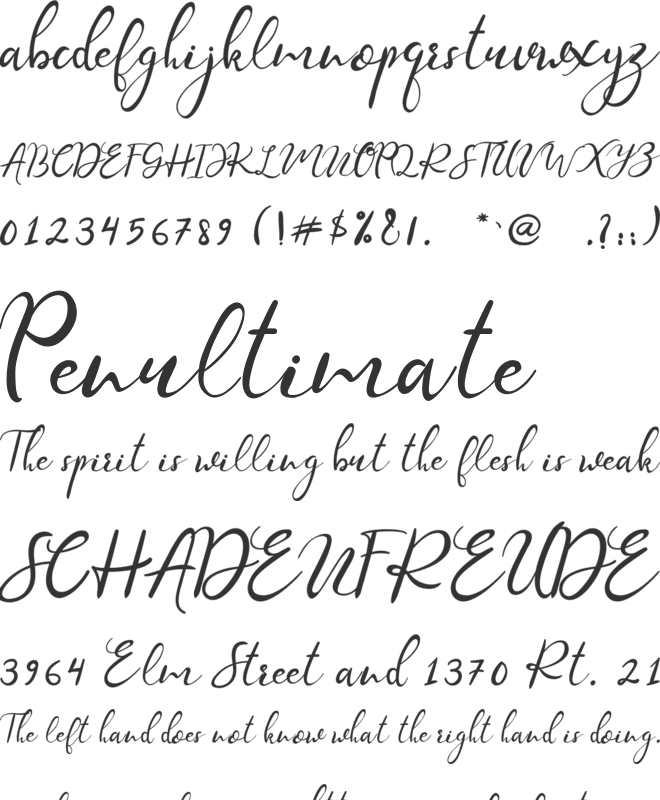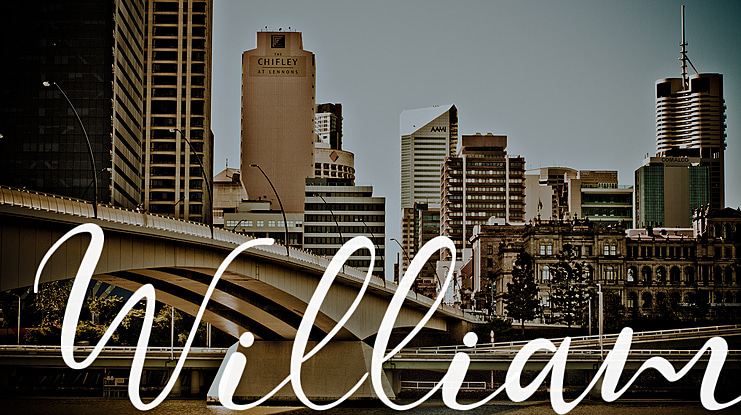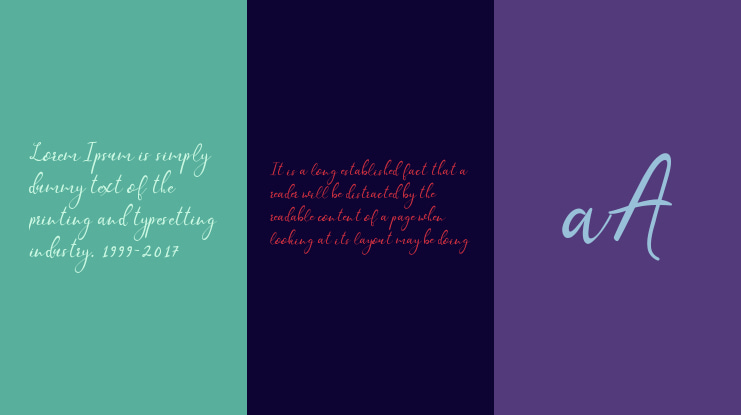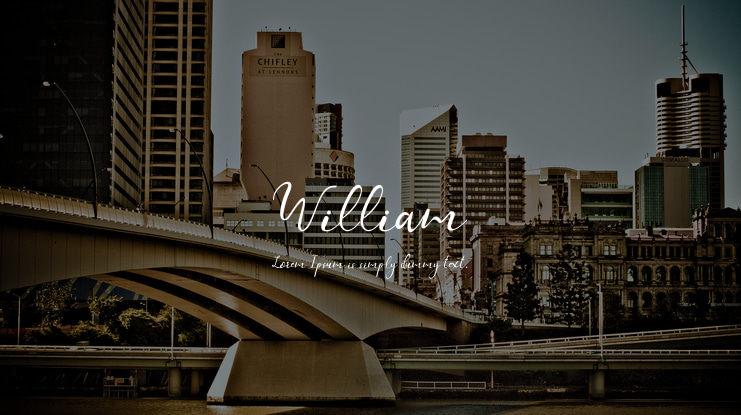
William Font
William *A Lovely Script Calligraphy*
William Script, a new fresh & modern script with a handmade calligraphy style. a charming typeface that is attractive and So beautiful on invitation like greeting cards, branding materials, business cards, quotes, posters, etc!
William Script also has a swash letters from a – z that would make it a more attractive font. This font can be used in various applications such as Microsoft Word, corel draw, adobe illustrator, adobe photoshop. in addition to having standard letters, numbers and some standard symbols.